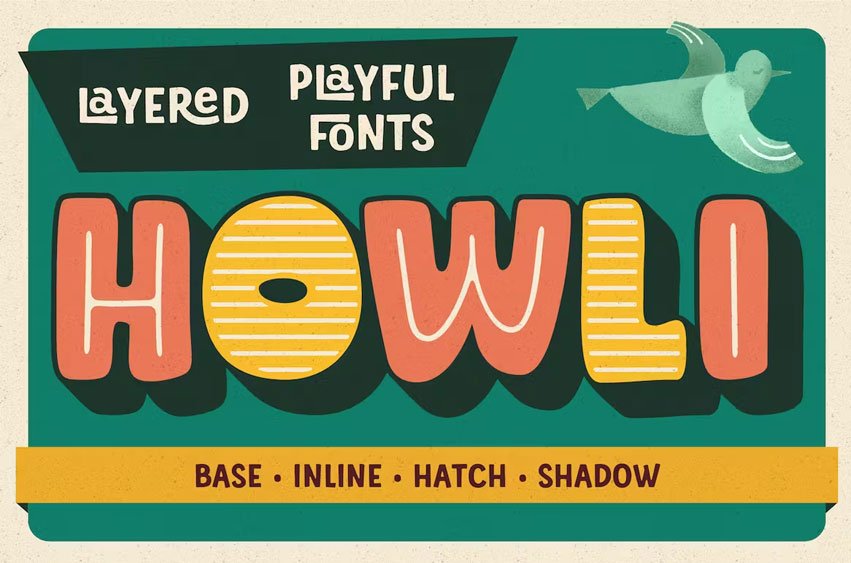
Howli Layers Font Playful Layered Fonts An exploration of a playful theme with a nice and cute look.
Howli layers, 3 Layered fonts with base, shadow and inline or hatch. you can choose between inline or hatch for the Howli Layers.